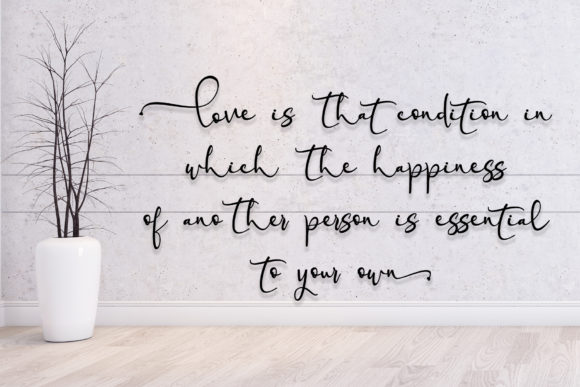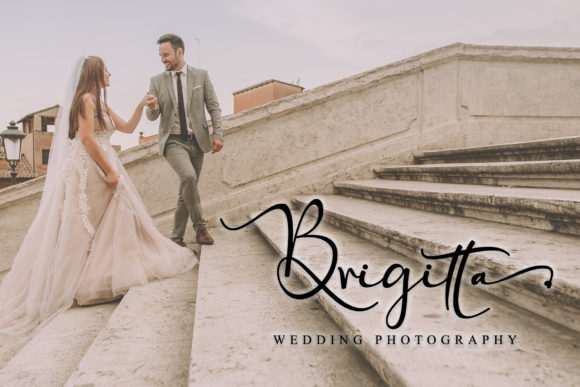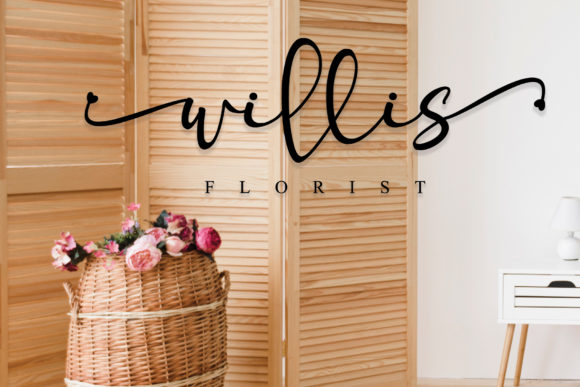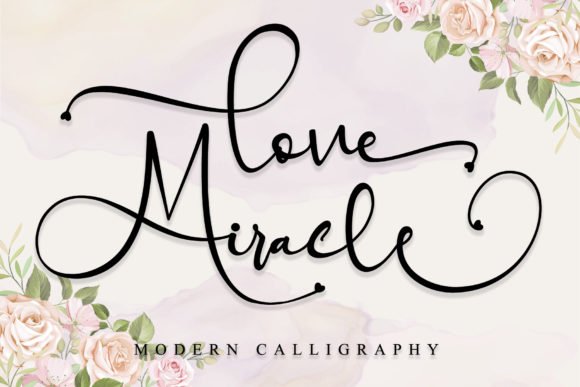
Introduction to Love Miracle Font
Love Miracle is a beautiful light handwritten font.
It features an incredibly classic style, while still keeping a friendly feel Love Miracle is the perfect font for making original and outstanding designs.